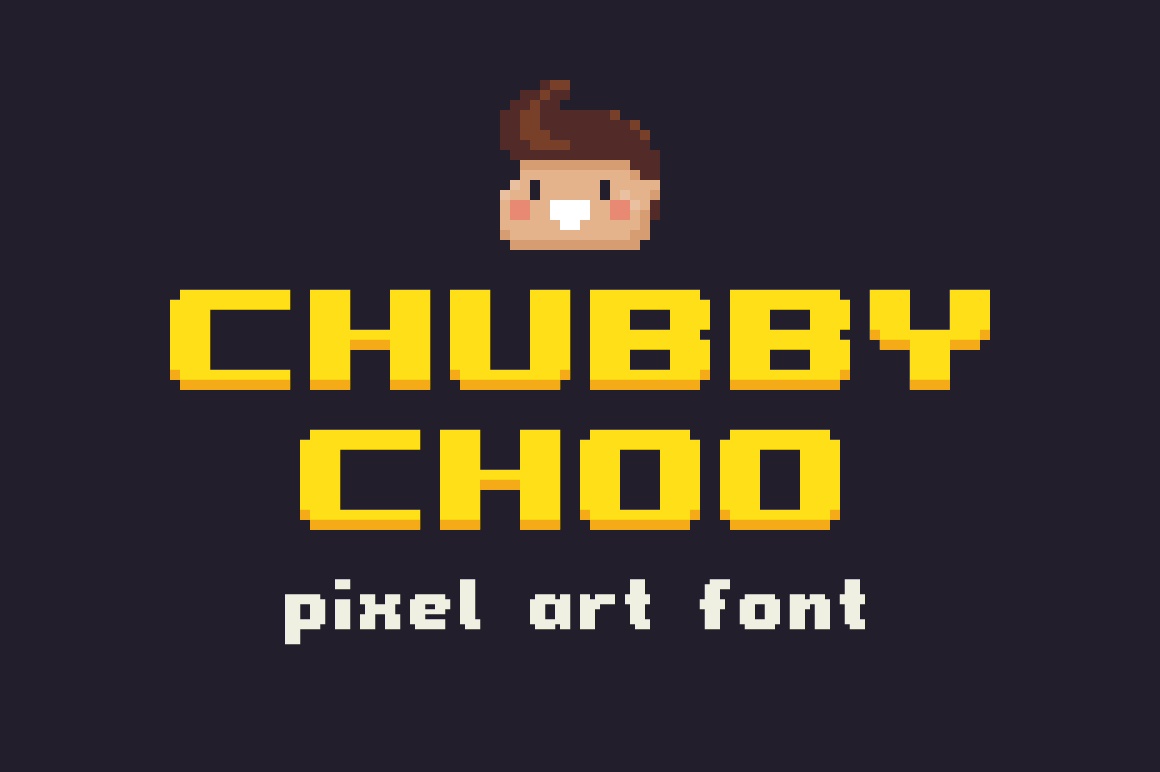
Chubby Choo - Pixel Art Font
Chubby Choo is a retro bitmap typeface. It contains:
- Latin alphabet letters
- UPPER and lower case
- Regular and SemiBold